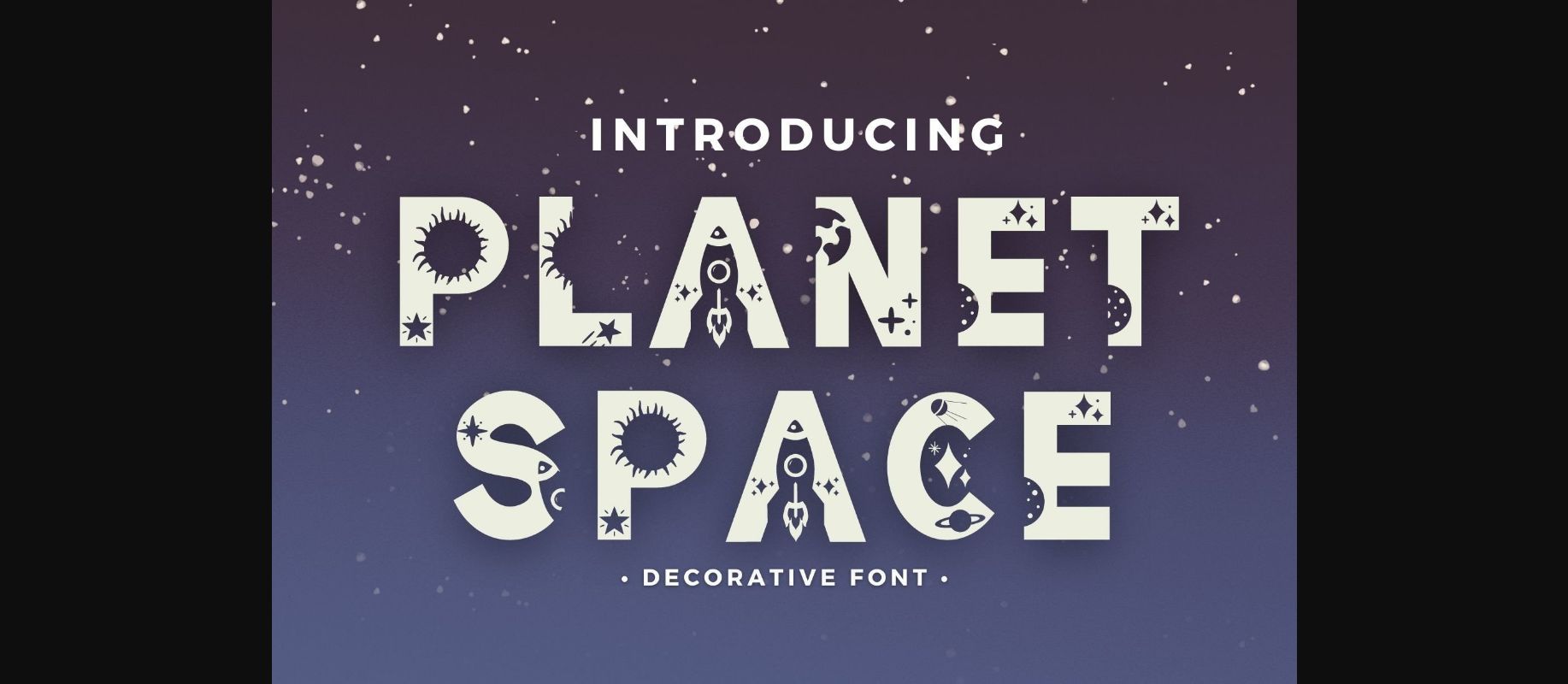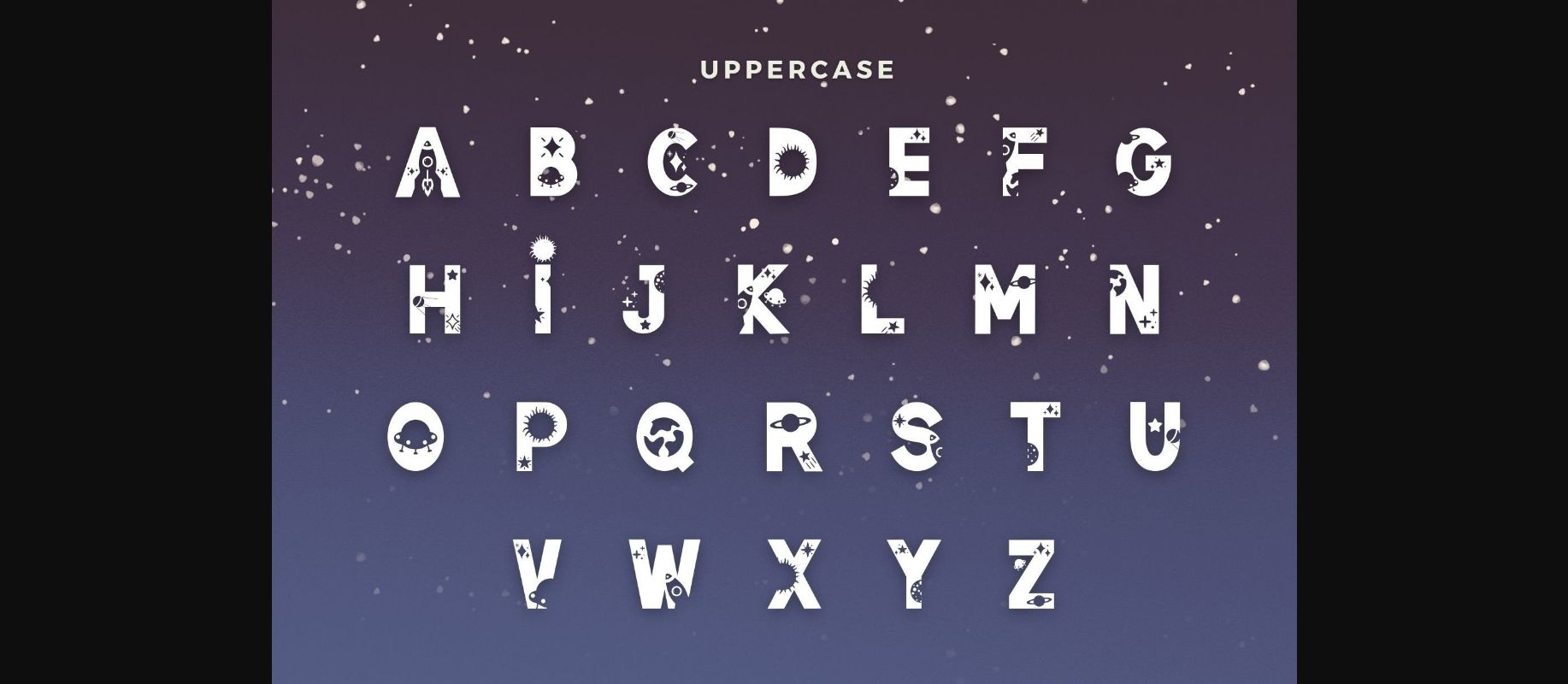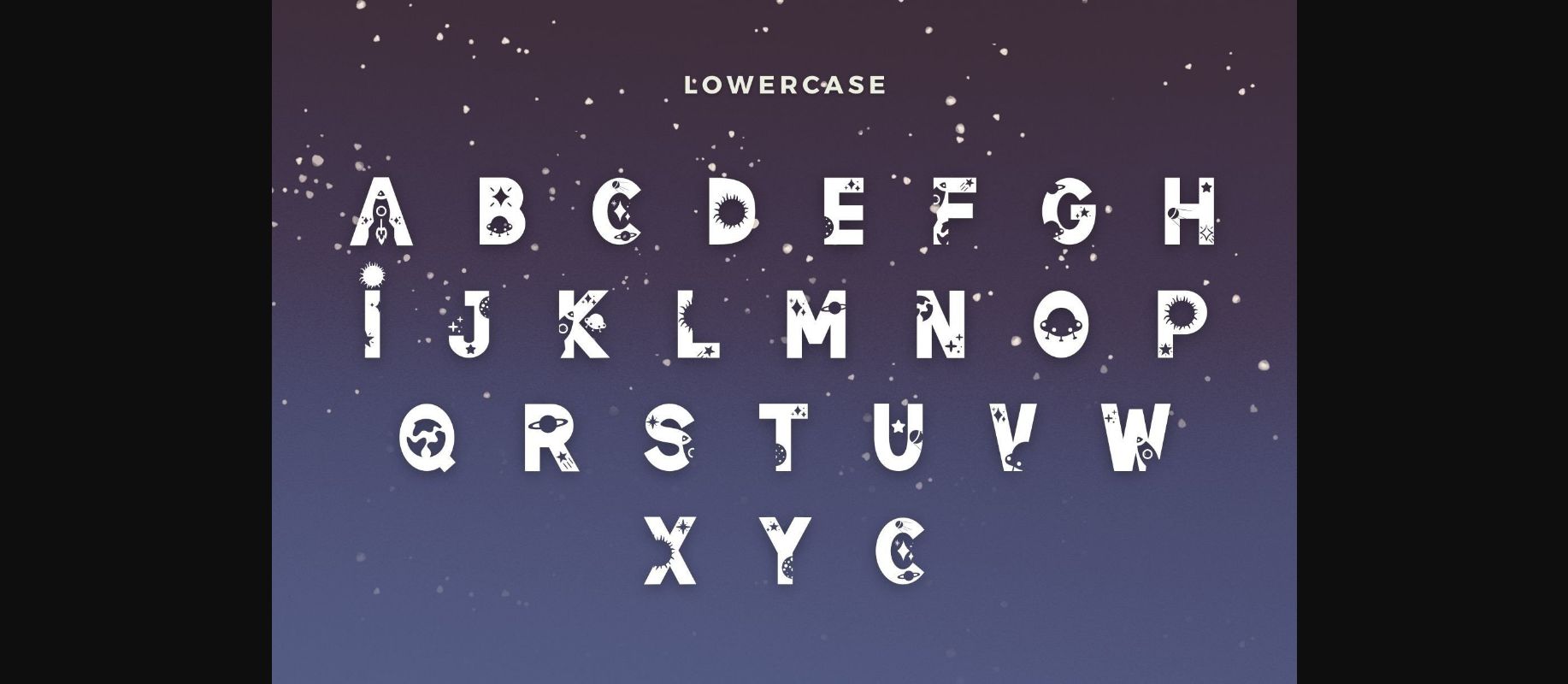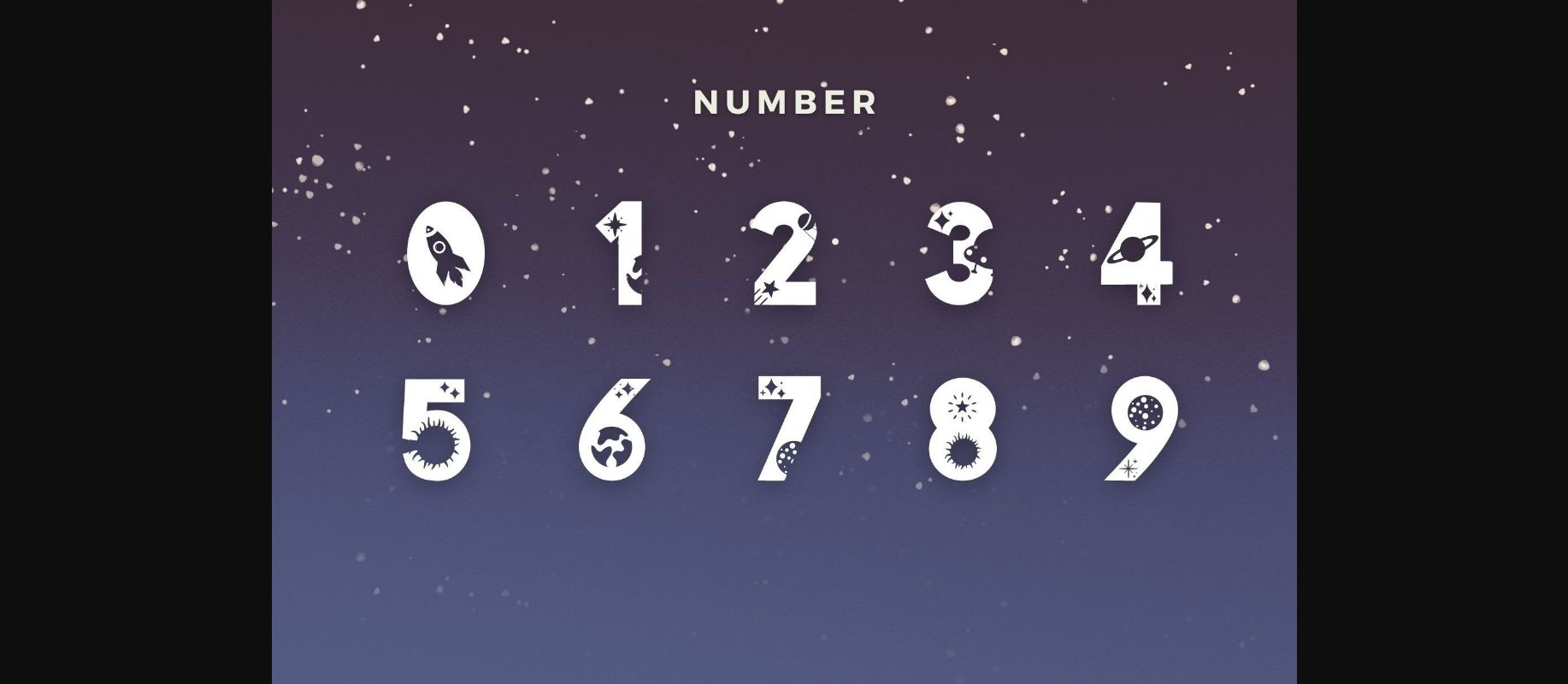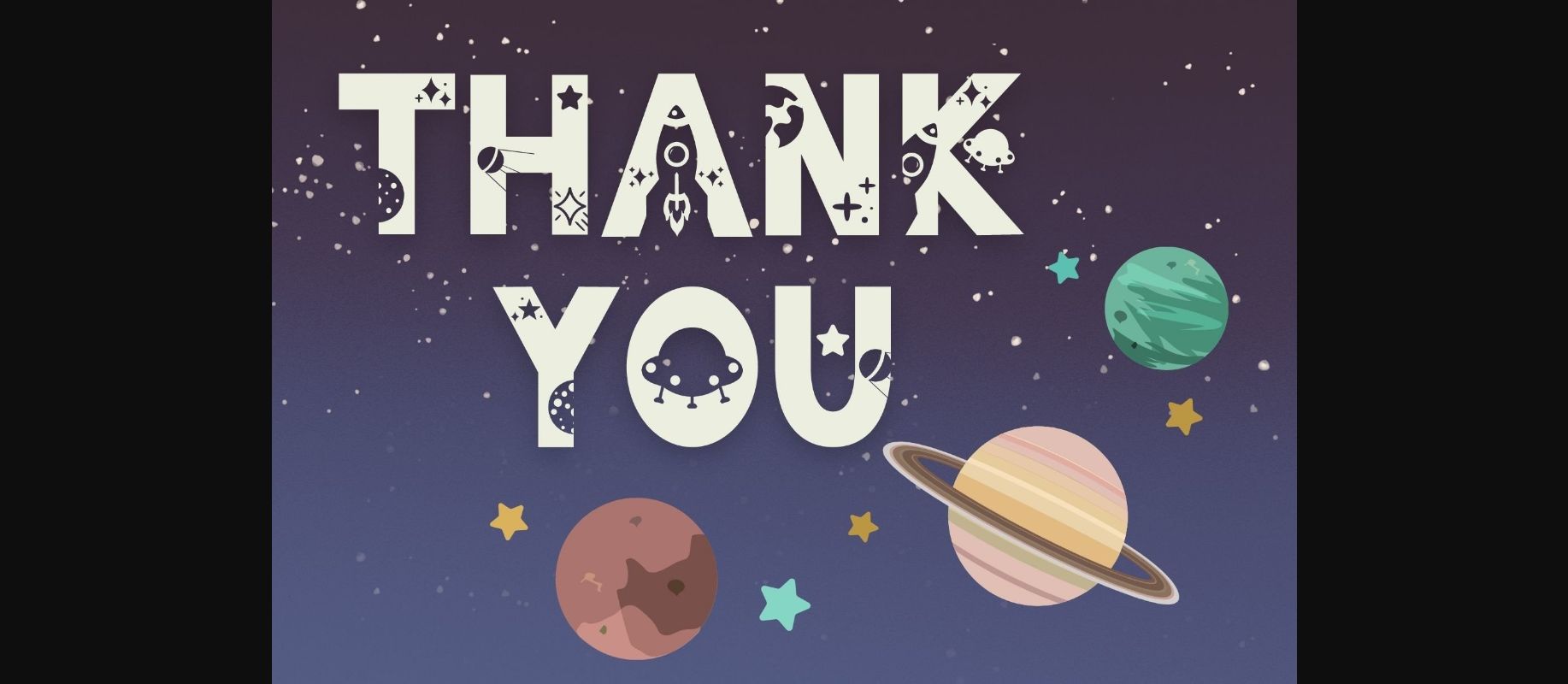
Planet Space Font
About Planet Space Font
Planet Space is a jolly and fun decorative font. It embodies playfulness and authenticity and is the perfect choice for various projects such as blog posts, logos, branding, ads, invitations, greeting cards, planners, photo albums, decorations, and much more. Add it to any of your designs, and enjoy the results!